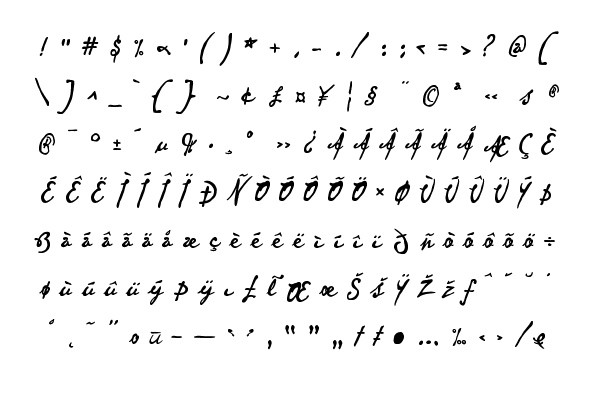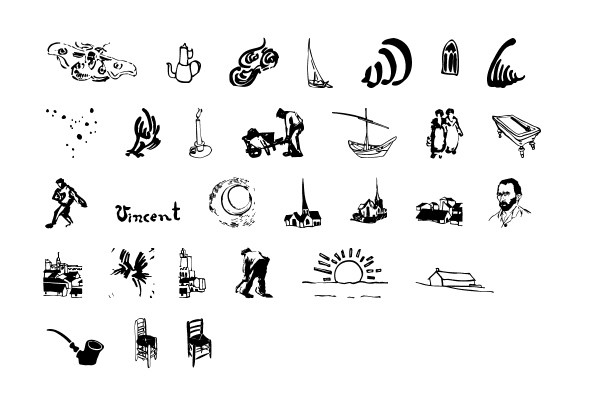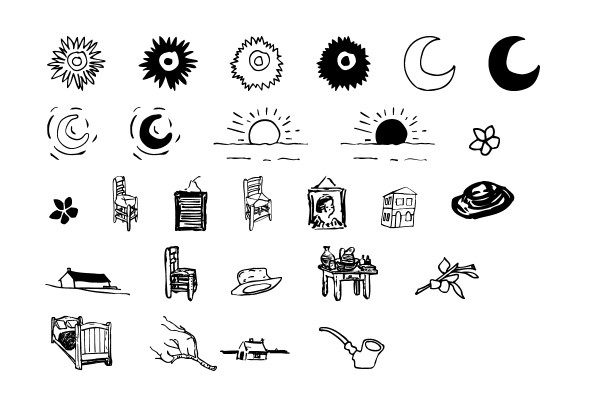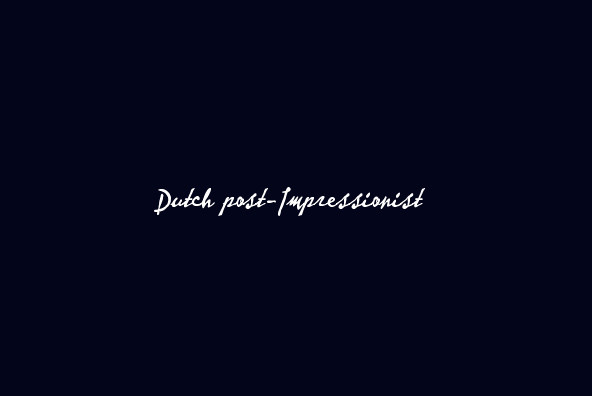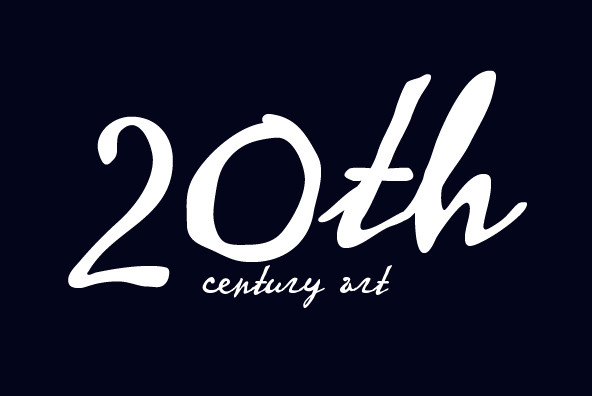
This set is inspired by the work of Vincent van Gogh. The alphabet captures the essence of van Gogh's handwriting style, using his extensive correspondence with his brother Theo as the primary reference.
This set is inspired by the work of Vincent van Gogh. The alphabet captures the essence of van Gogh's handwriting style, using his extensive correspondence with his brother Theo as the primary reference. This lettering style presents a bold brush-stroke appearance which bears striking similarities to the painting style of Van Gogh. A full international charcter set is featured. The extras feature selected imagery from van Gogh's drawing and paintings.